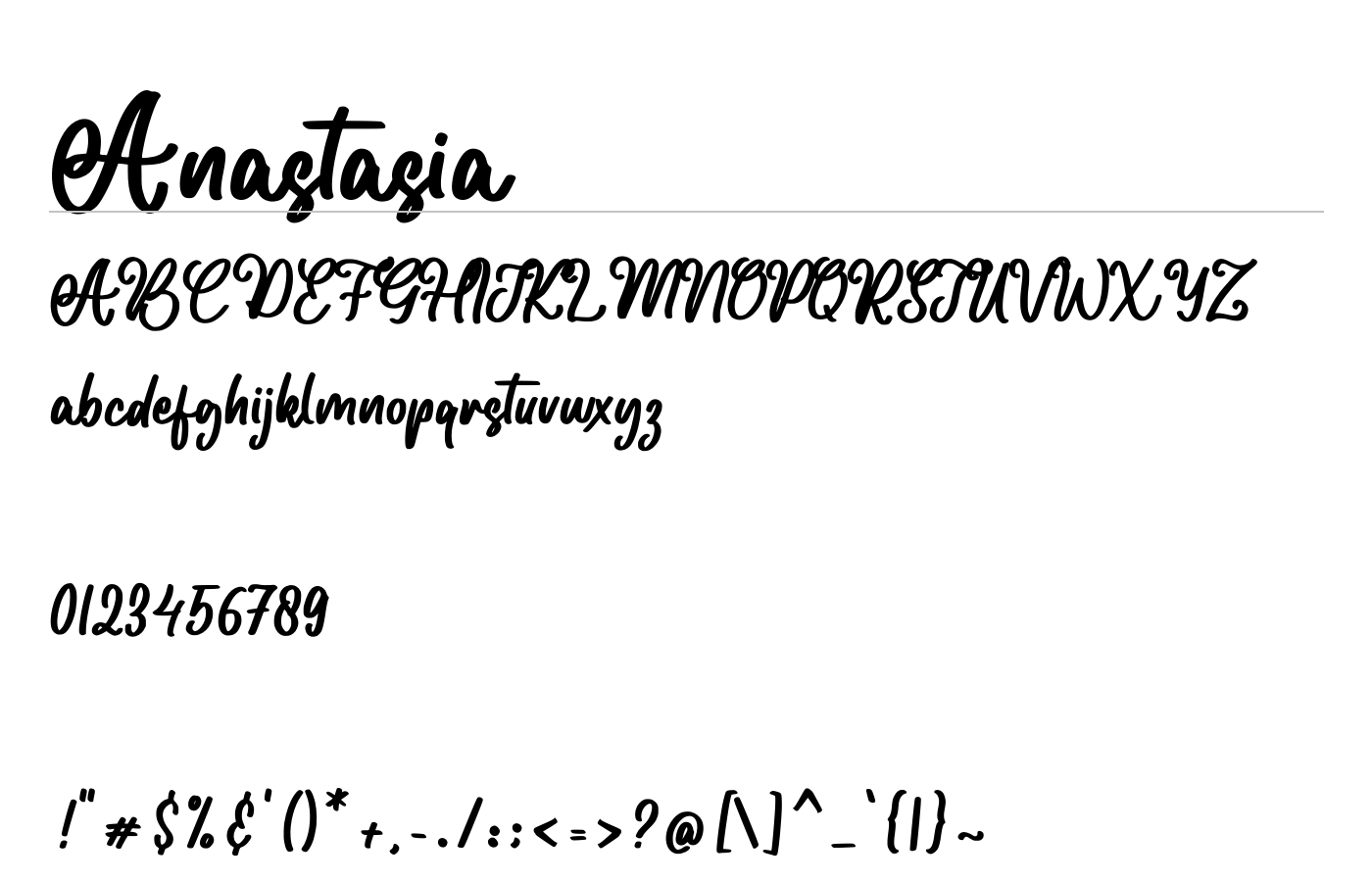
Anastasia is a lively and elegant script font with smooth, flowing strokes and a moderately bold weight that adds personality without overwhelming. Its playful yet refined character makes it perfect for branding, invitations, and logos where a touch of handcrafted charm and sophistication is desired. This font shines in creative, feminine, or casual contexts, bringing warmth and style to headlines and decorative text.
Anastasia Font
About Anastasia Font
| Font family | Anastasia Font |
| Designer | Novia Himatunnisa |